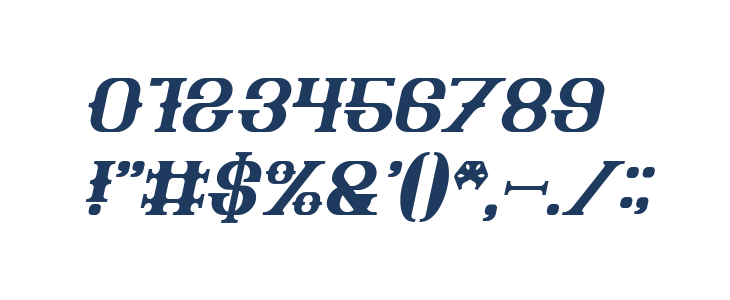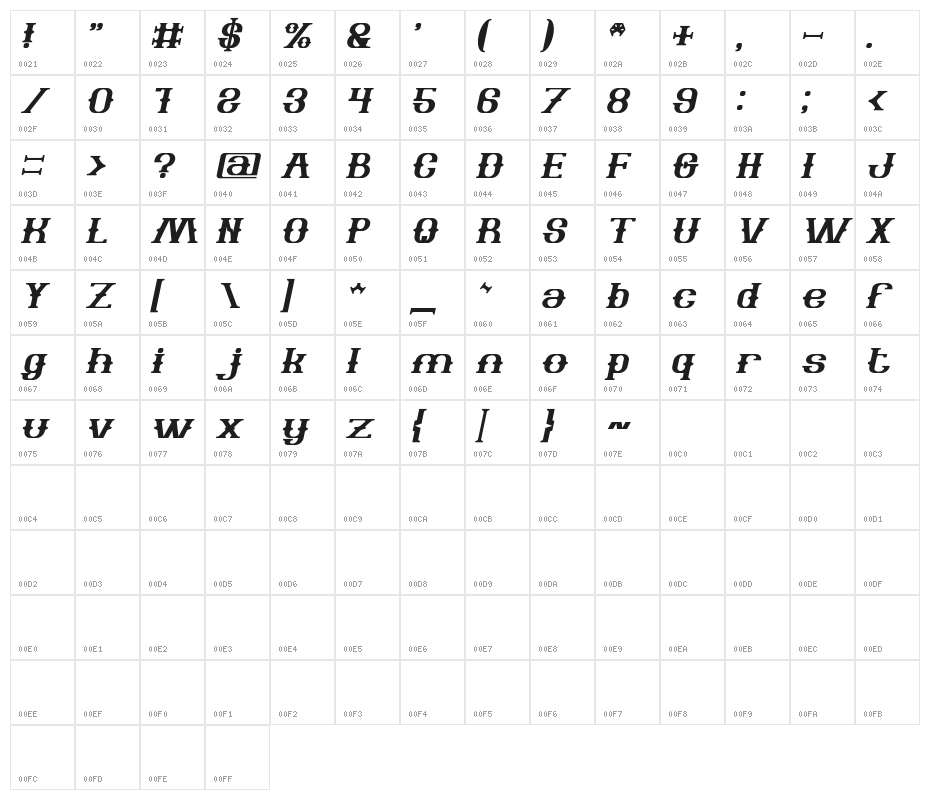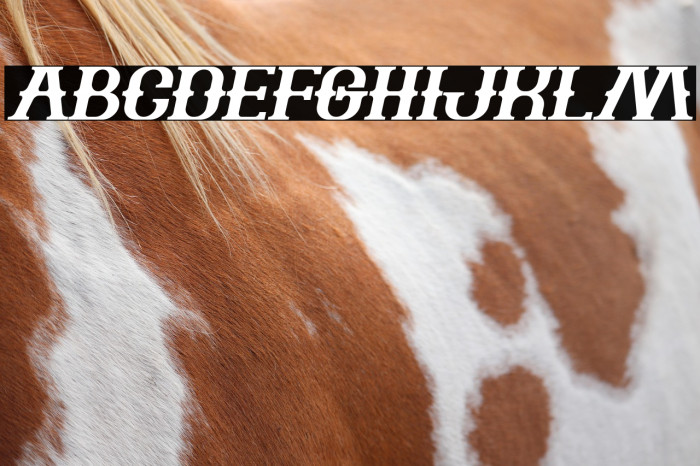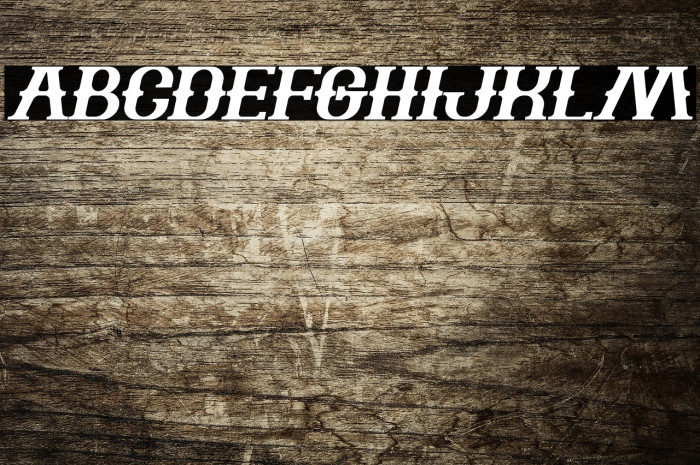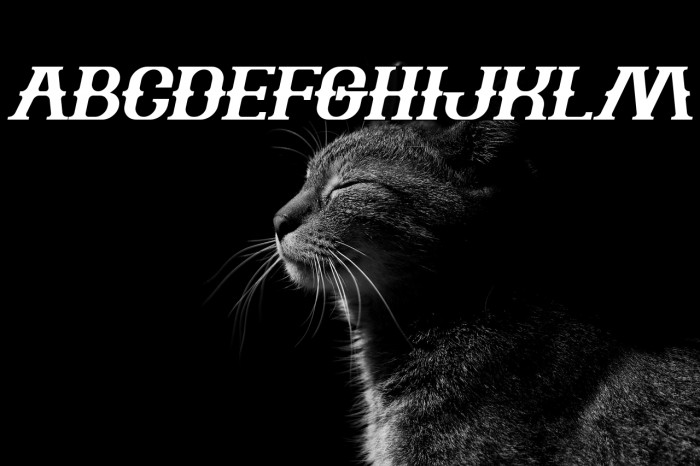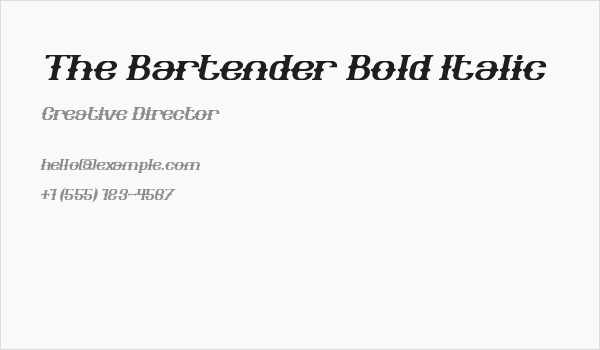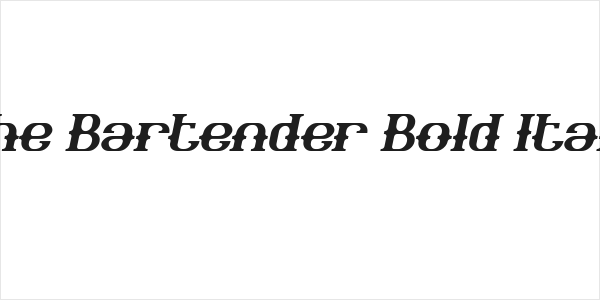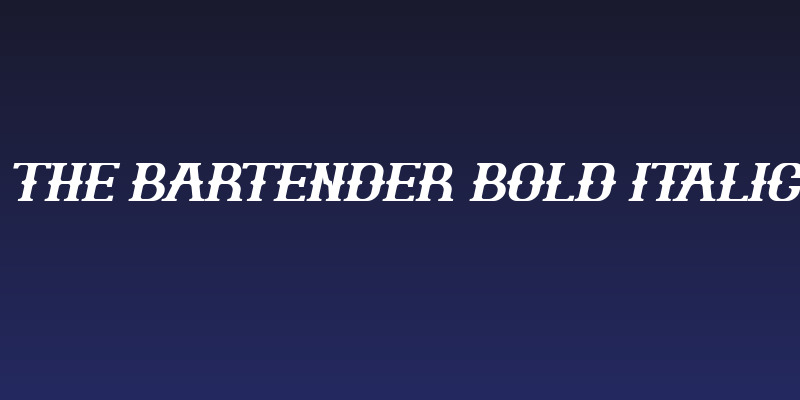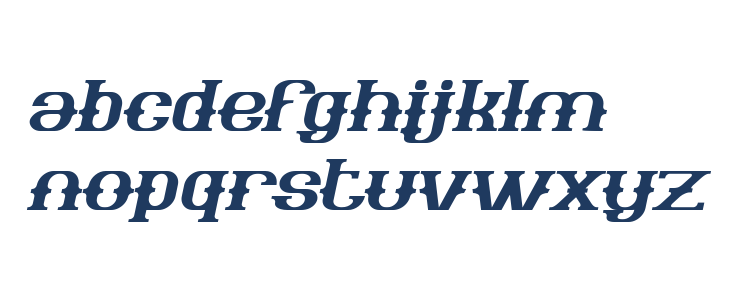
The Bartender Bold Italic Font
The Bartender Bold Italic Description
This font features a bold and italicized style with a distinctive flair. The characters have a strong presence, with thick strokes and a slight slant that adds dynamism and movement. The serifs are pronounced, giving the font a classic yet modern appeal. The uppercase letters are robust and commanding, while the lowercase letters maintain a cohesive flow. Numbers and special characters are designed with the same boldness, ensuring consistency across all elements. The font's overall appearance is both decorative and functional, making it suitable for a variety of design applications.